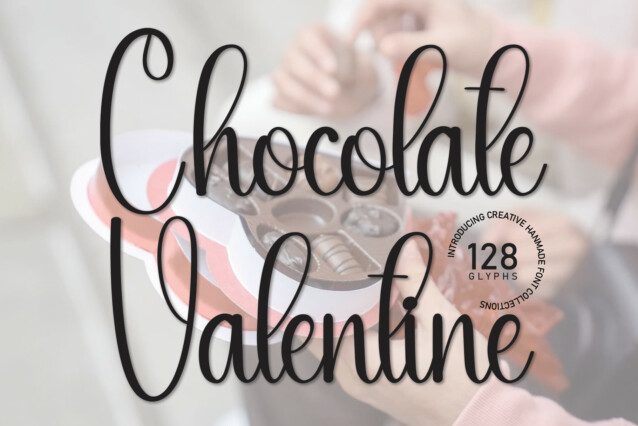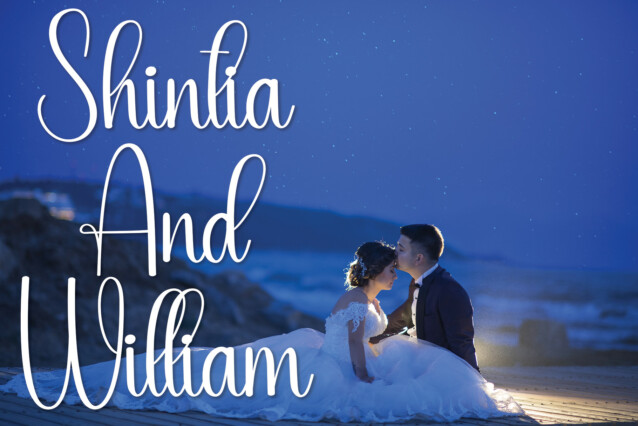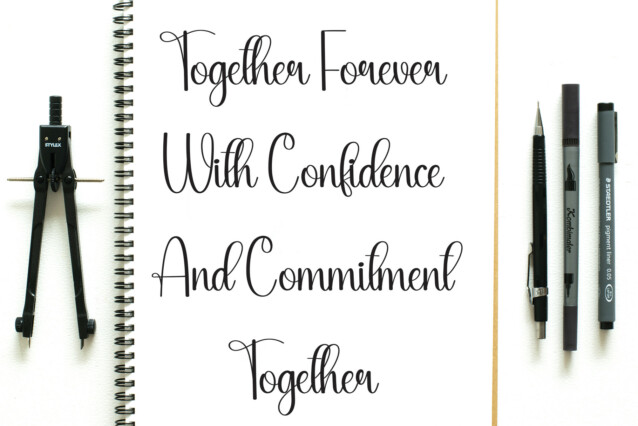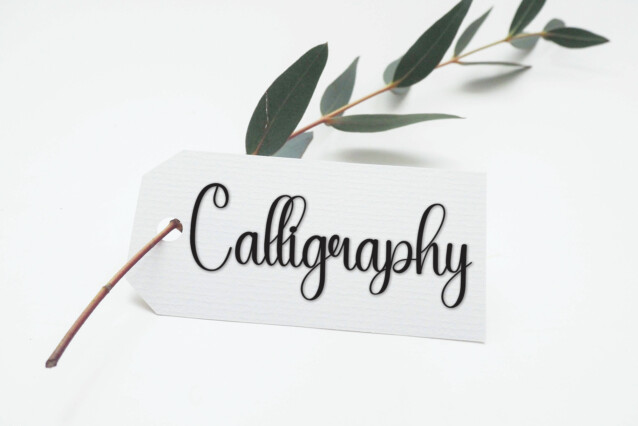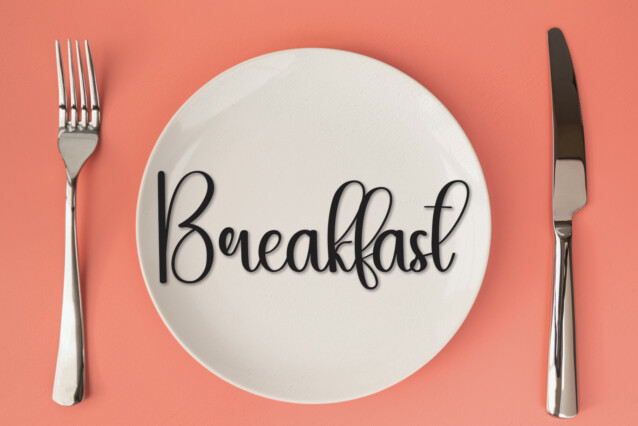
Chocolate Valentine Script Font
Chocolate Valentine Script Font is a clean and simple lettered handwritten font. Whether you’re using it for crafting, digital designing, presentations or greeting cards making, it’s perfect!